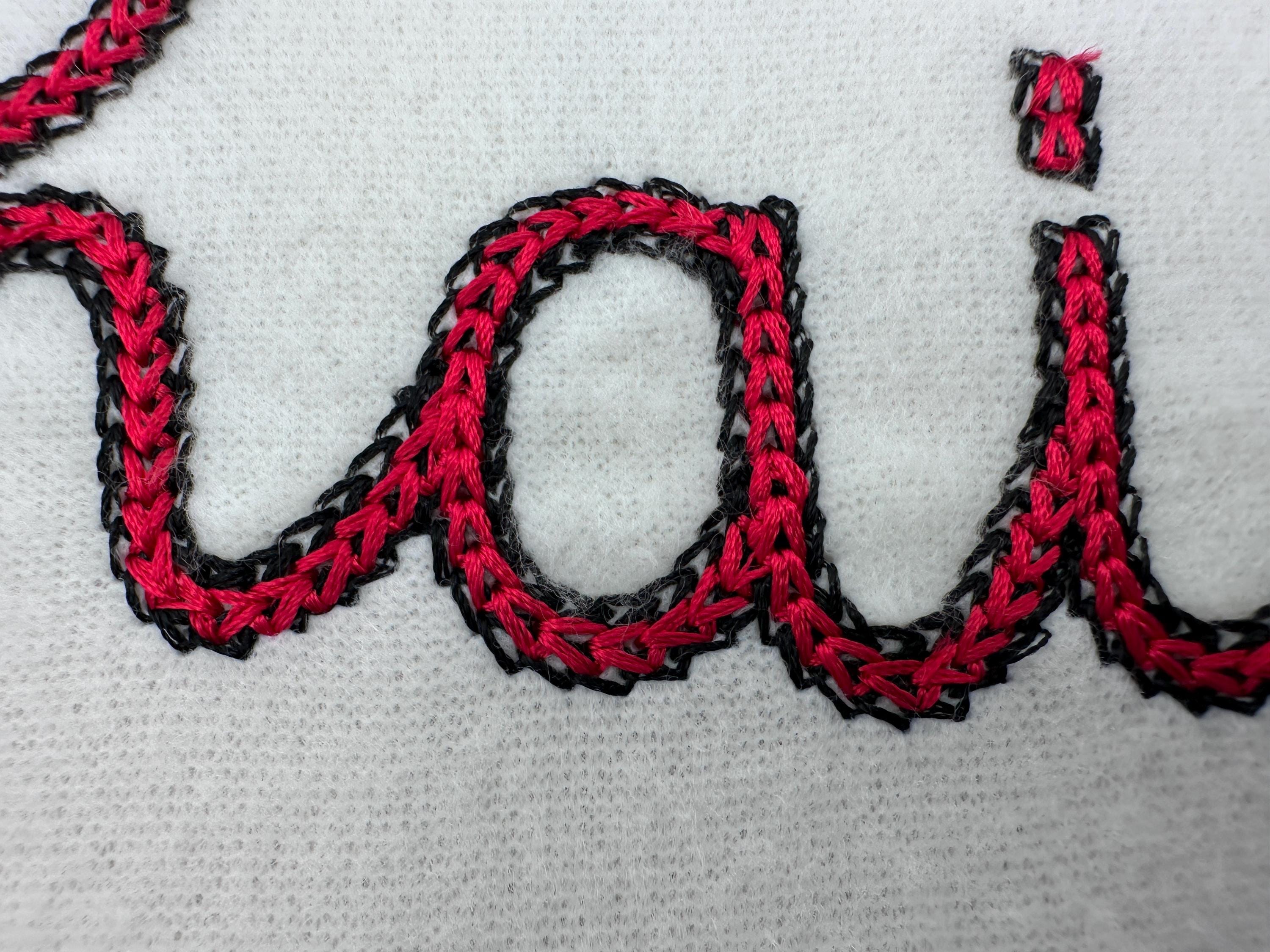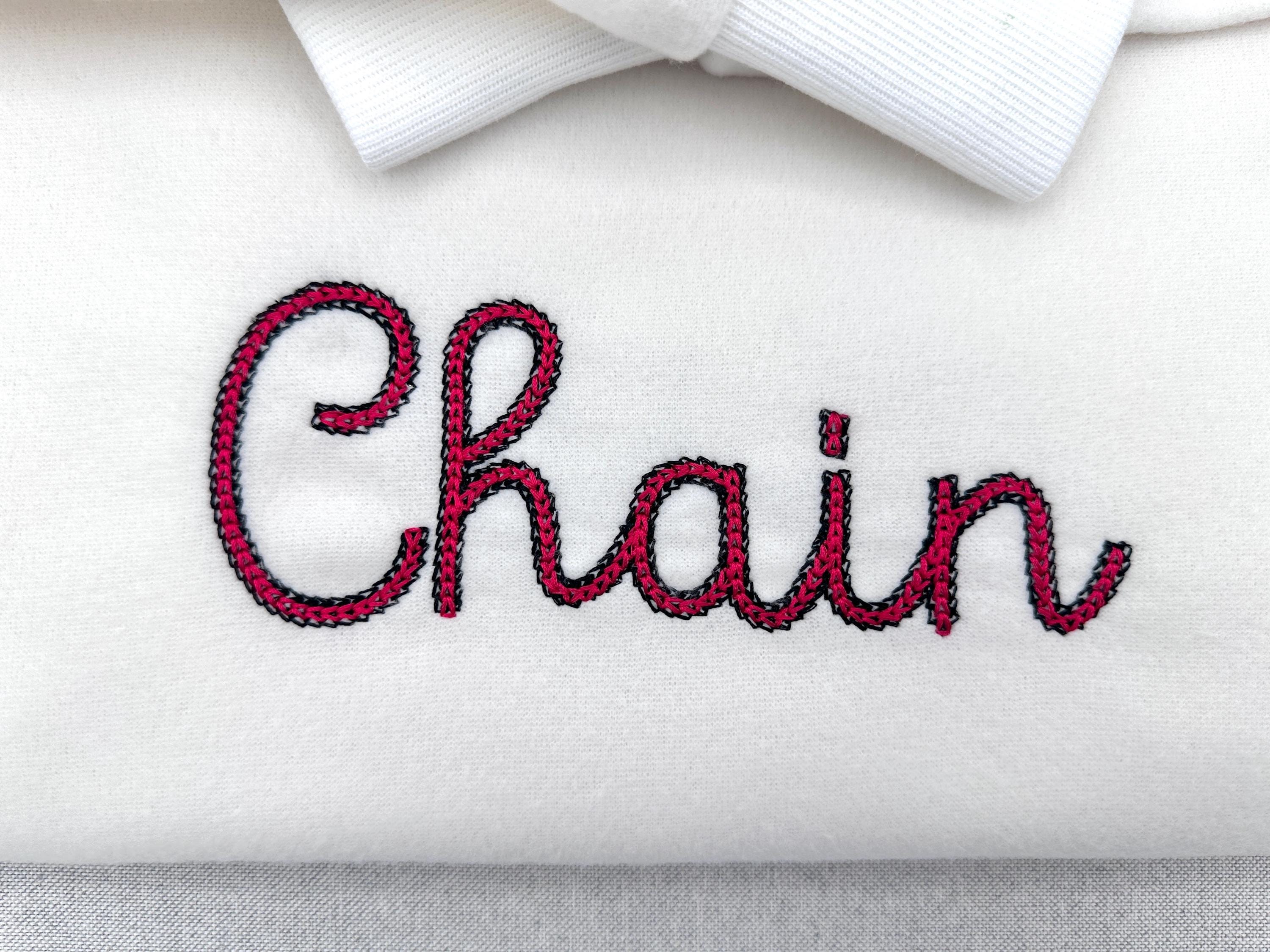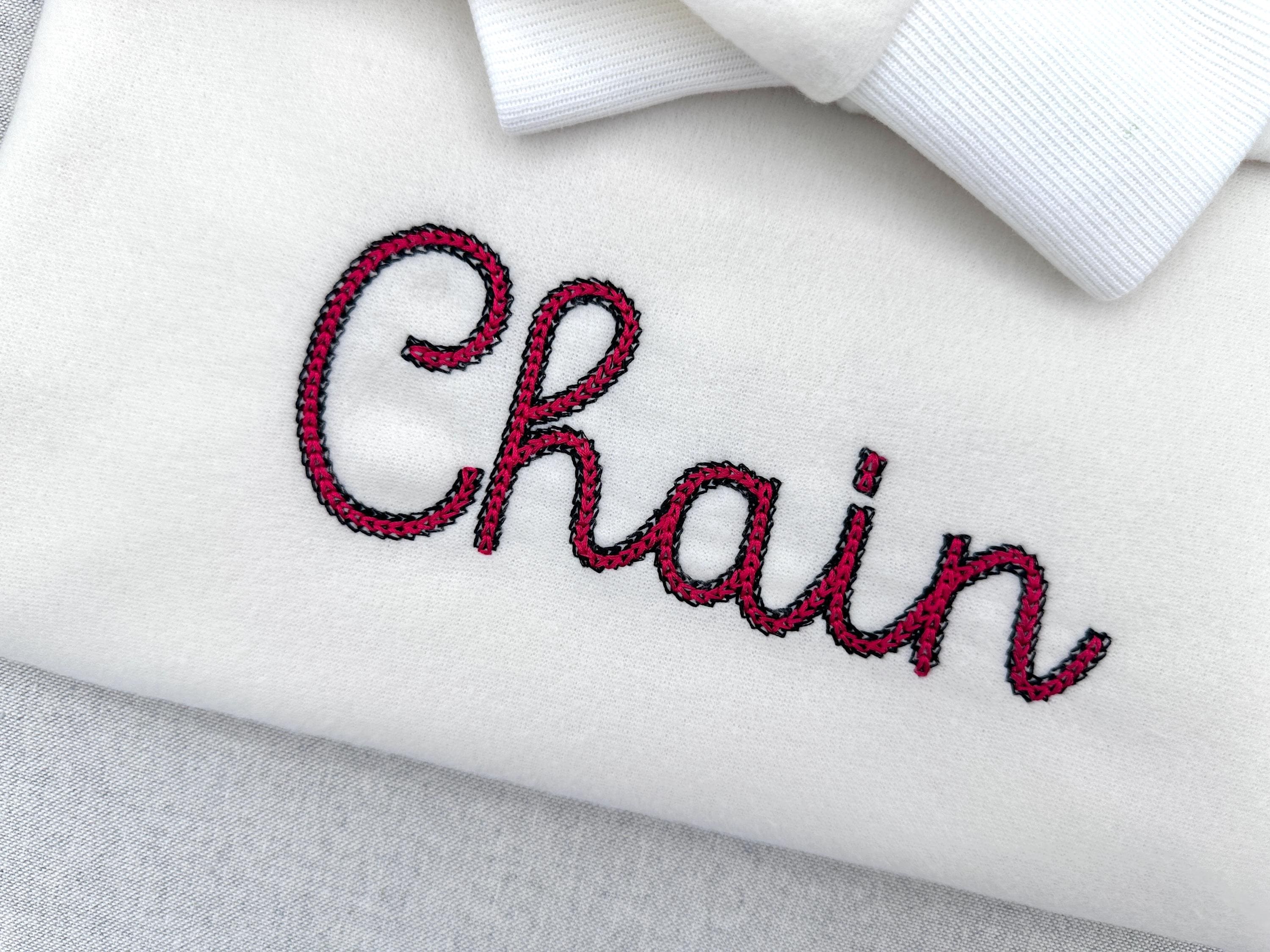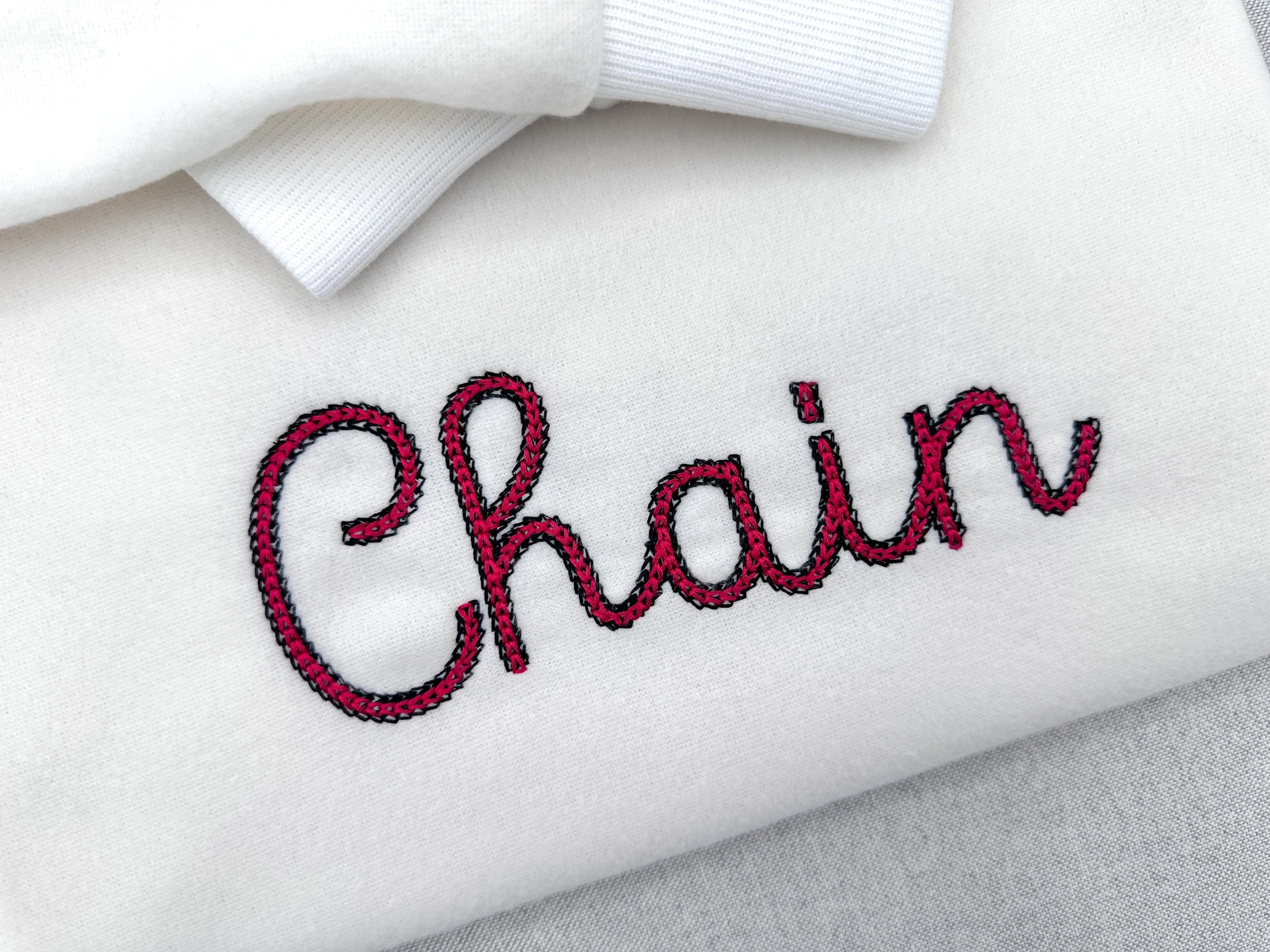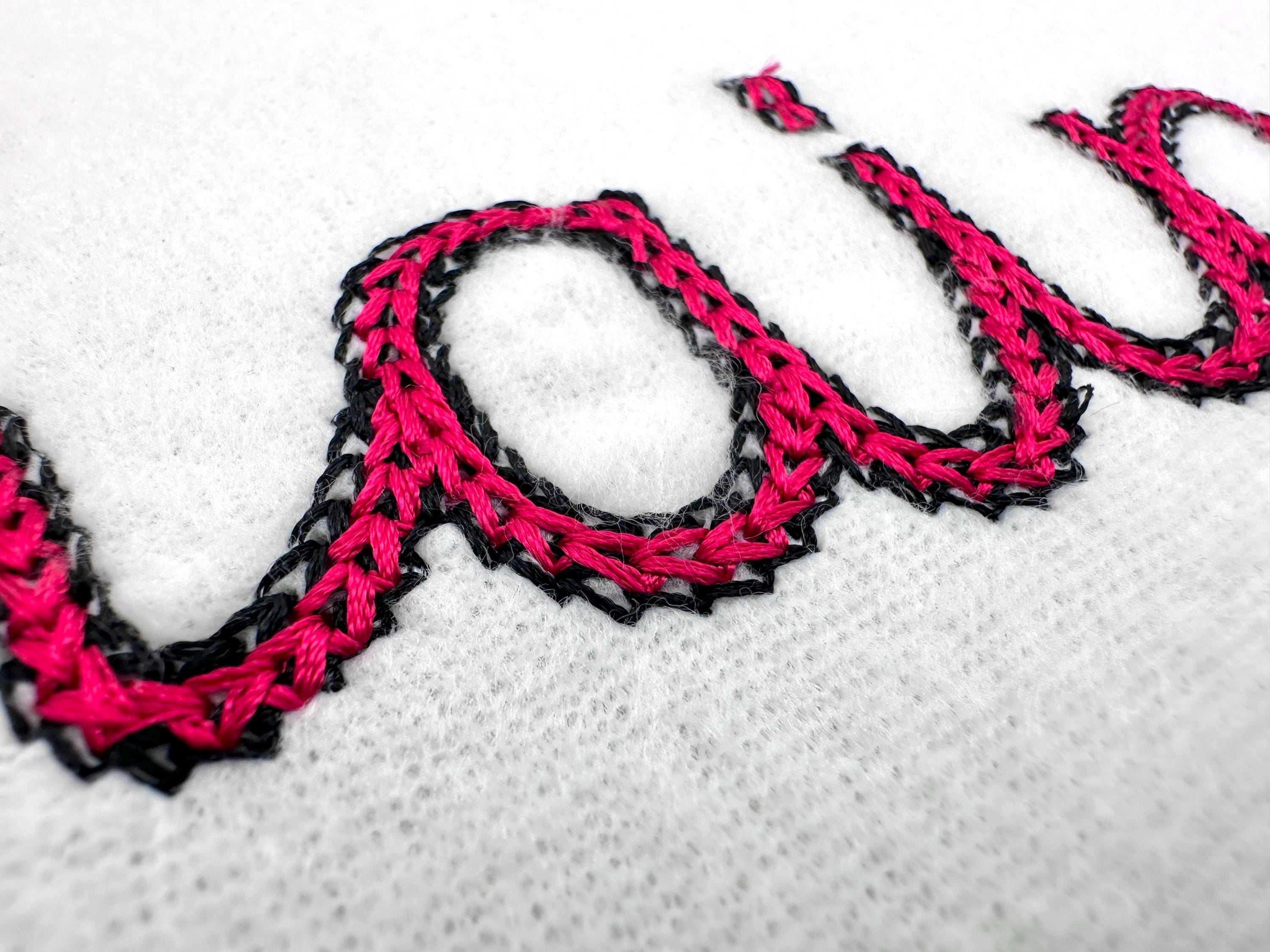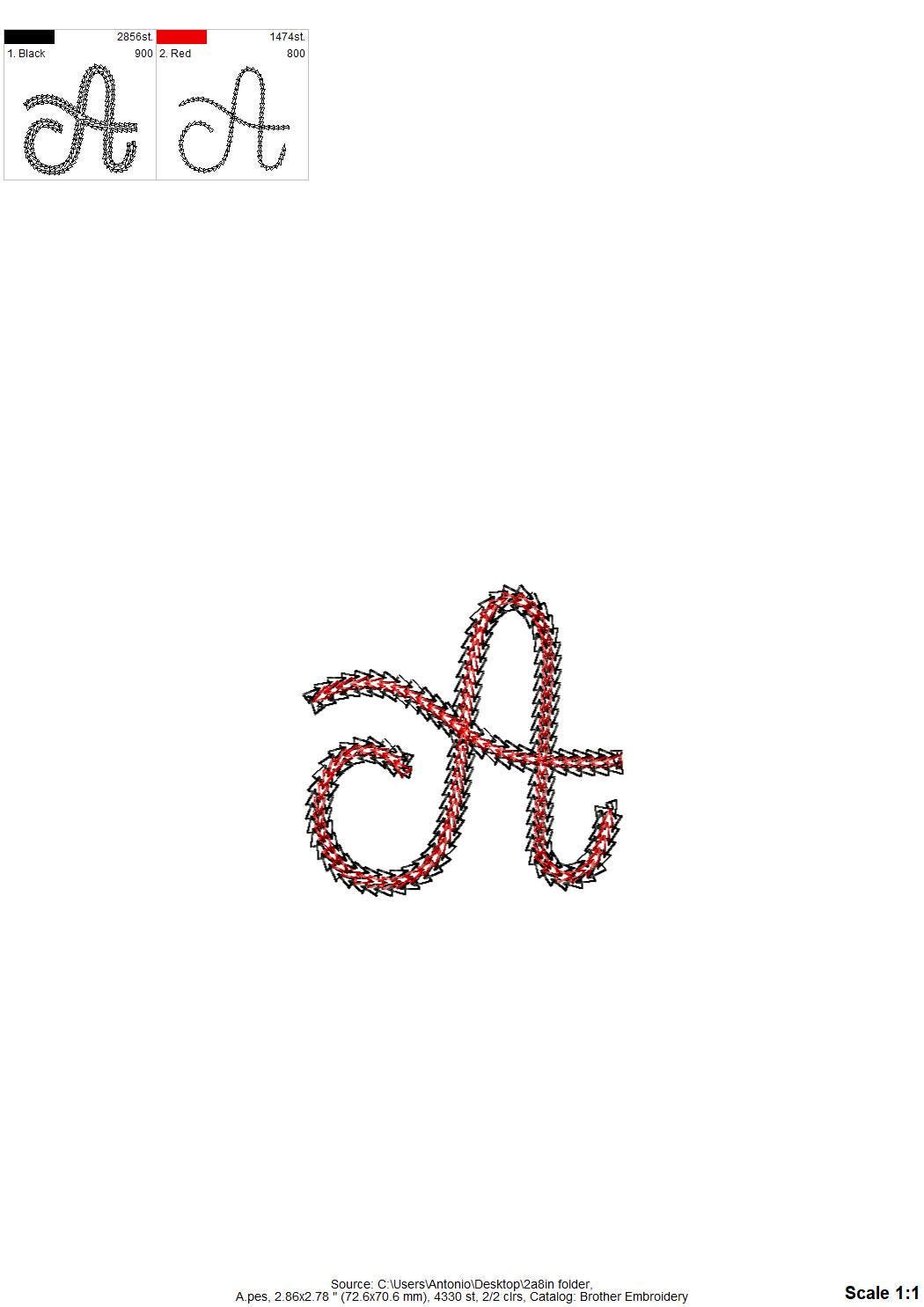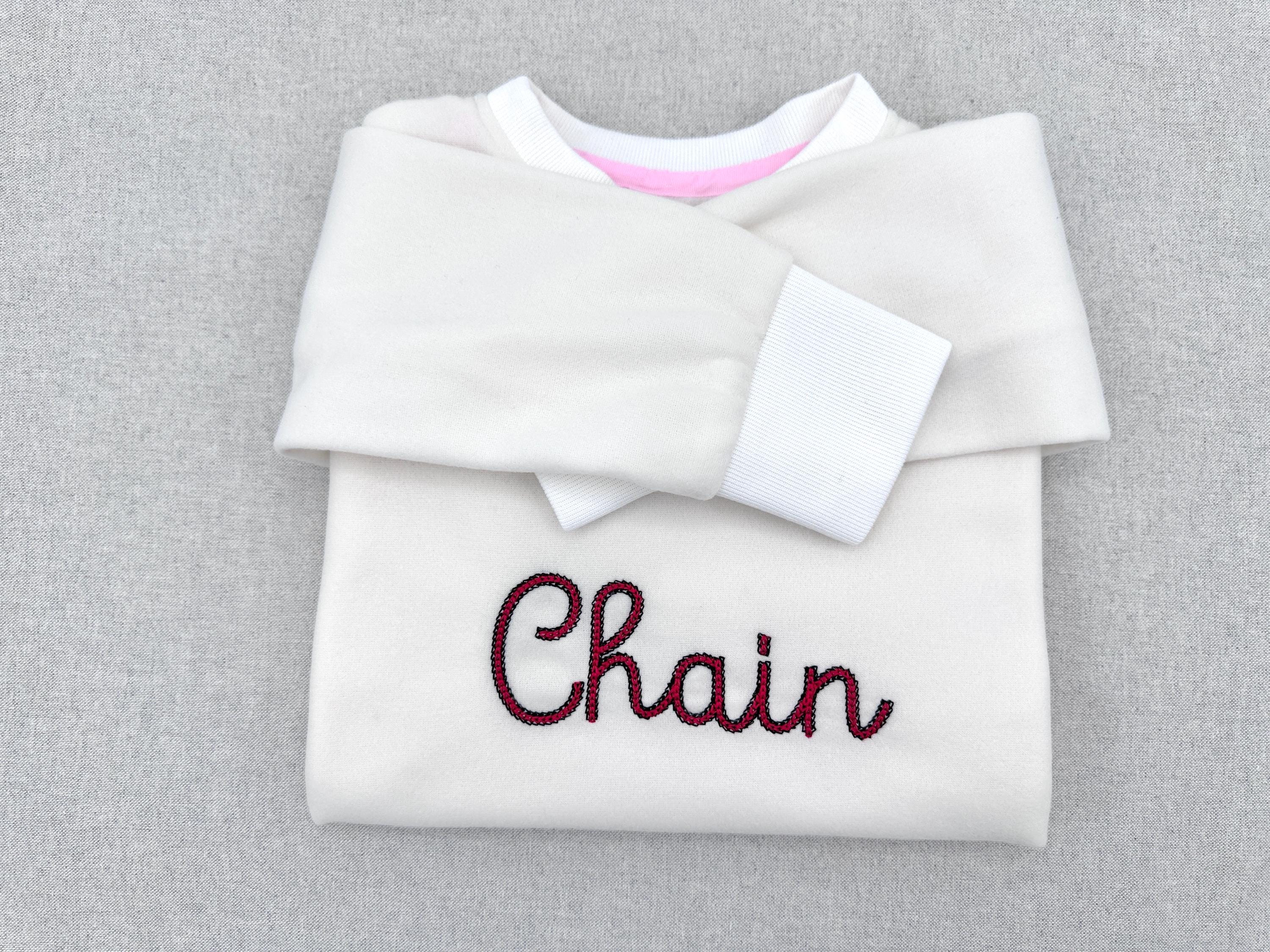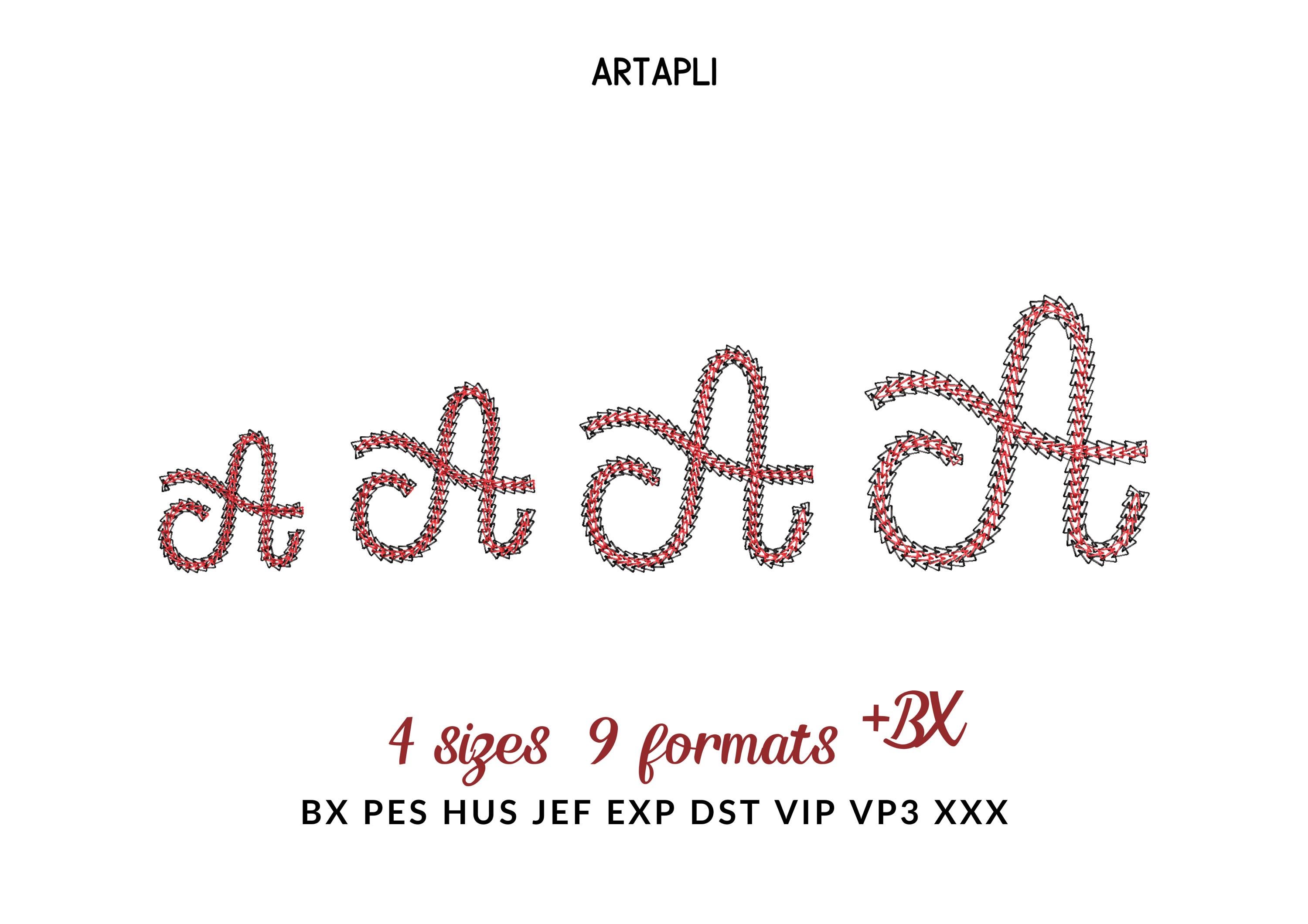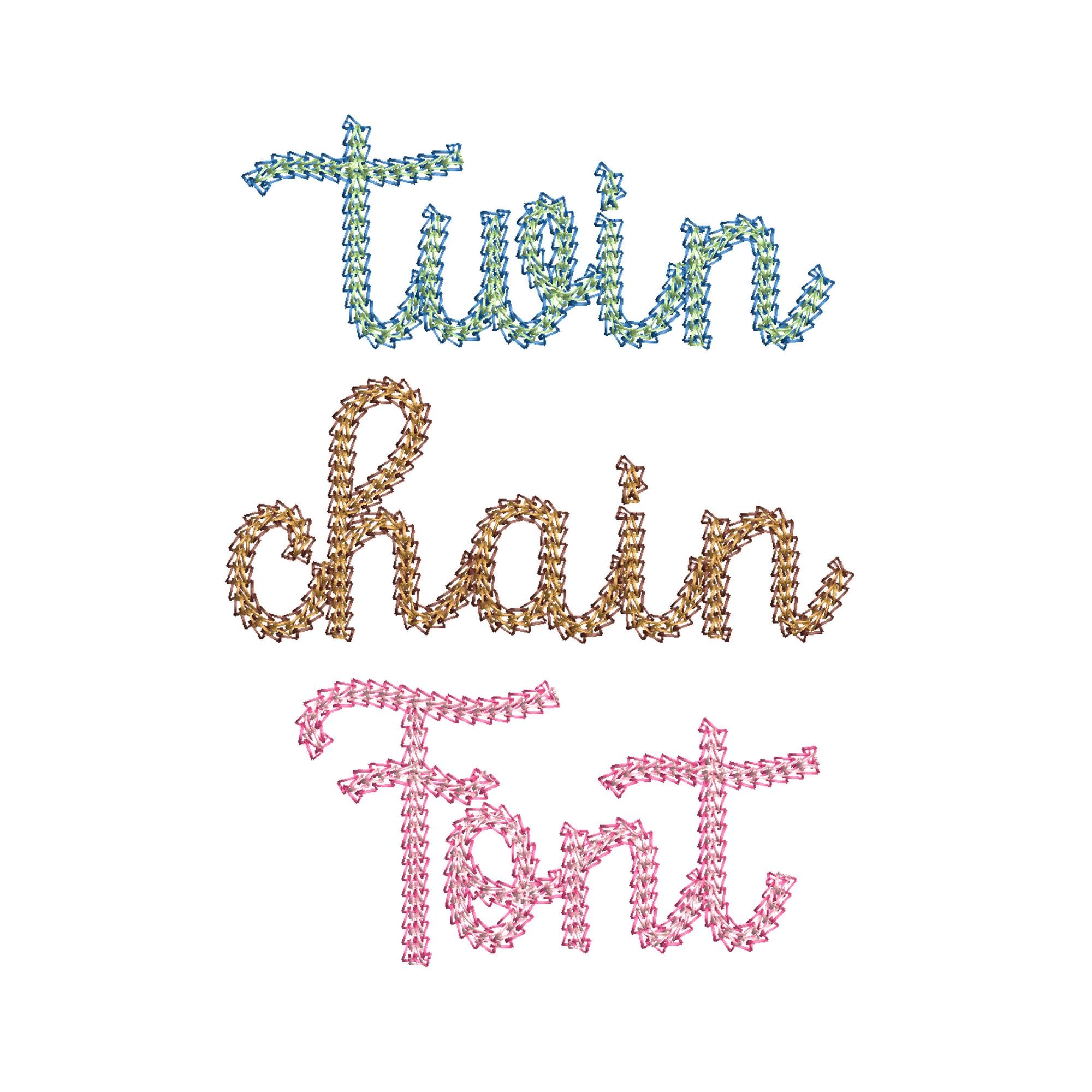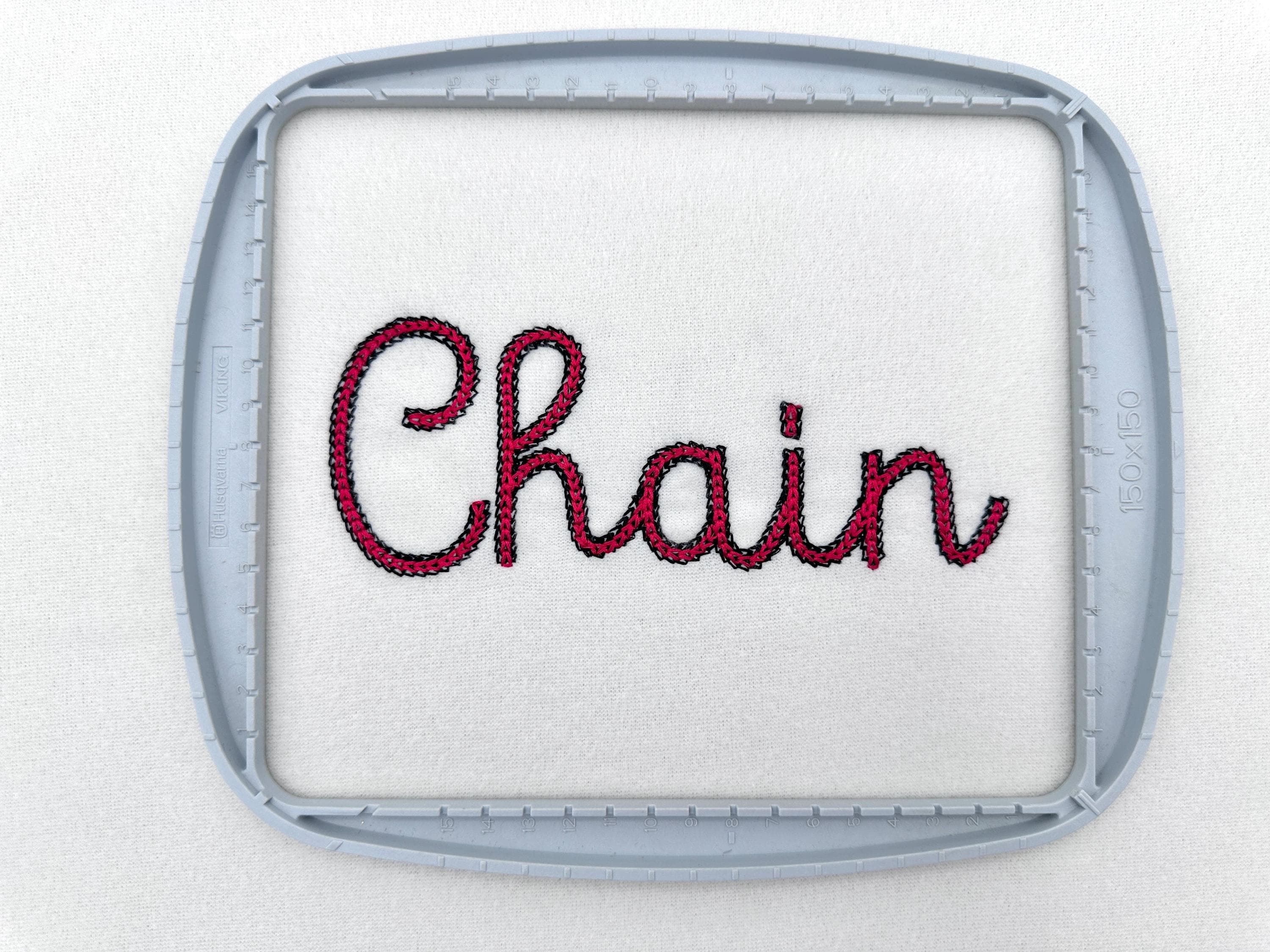
2 Color Twin Chain FONT light chain stitch handwritten script Alphabet Monogram machine embroidery designs sizes 1.8 up to 3.4 inch and BX included
Whole alphabet Aa-Zz uppercase and lowercase letters, numbers 0-9, and punctuation.